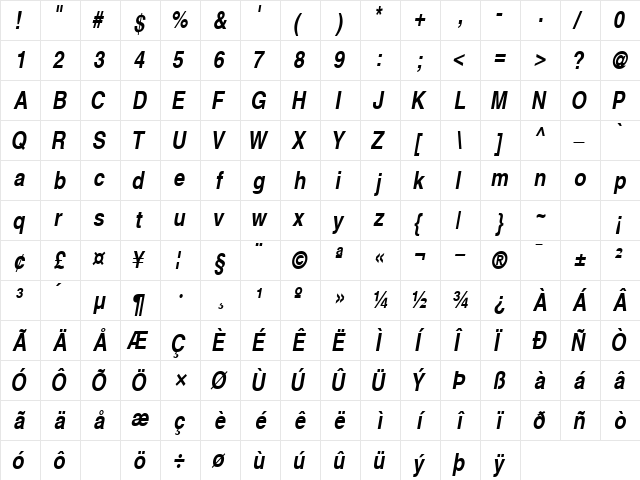
ContextExtraCondSSK BoldItalic Font Preview
Design Context for ContextExtraCondSSK Typeface
ContextExtraCondSSK offers clean, dependable letterforms without strong stylistic allegiance, making it a practical choice for designers who need flexibility. The slanted form adds forward momentum and visual energy. The heavy weight commands attention and anchors typographic hierarchies. The condensed width makes it efficient for tight spaces without sacrificing legibility.
Pro Tip: Use ContextExtraCondSSK for emphasis, pull quotes, and subheadings where its slanted energy can add rhythm to the layout.